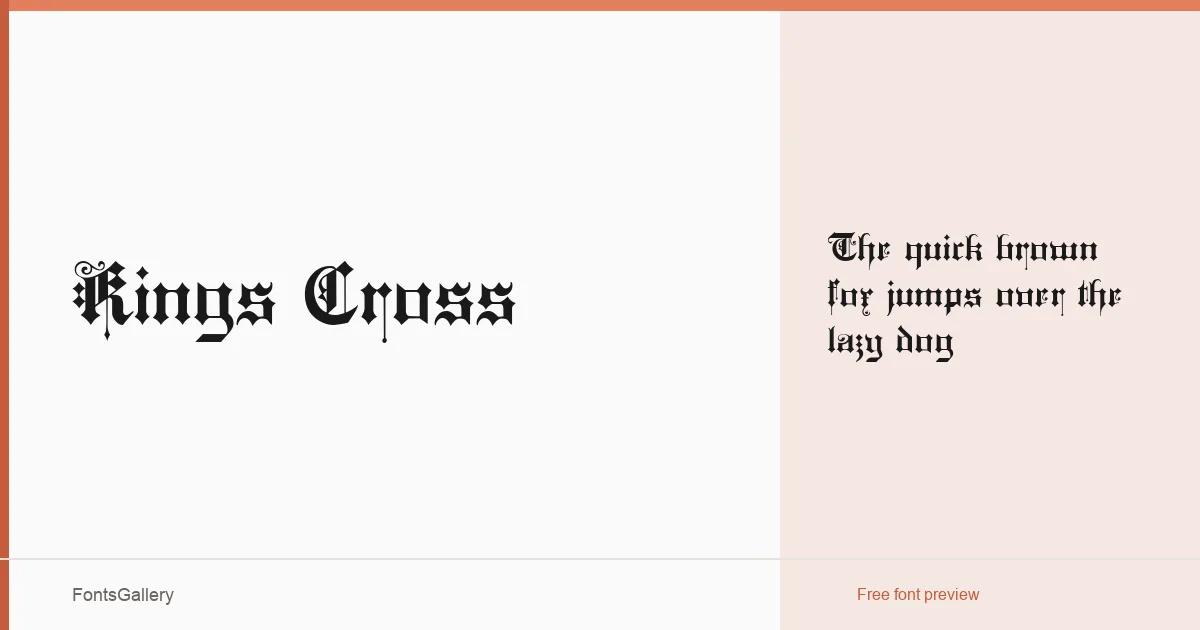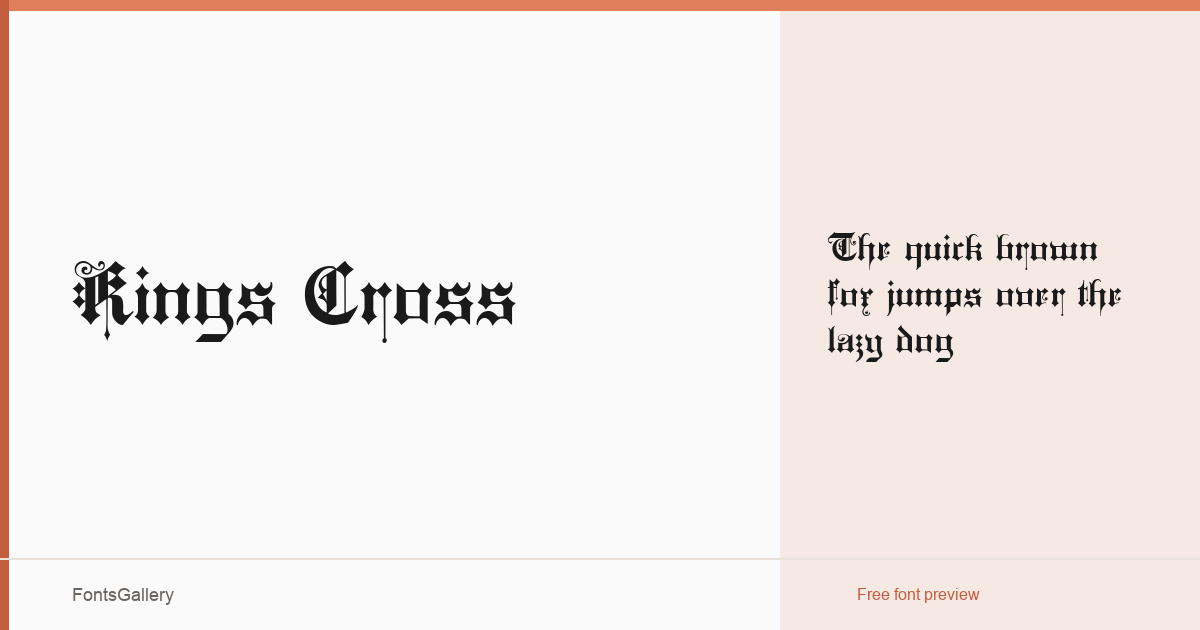
About Kings Cross Font
Kings Cross is a striking Blackletter typeface published by Typographer Mediengestaltung, crafted to deliver a powerful combination of vintage character and bold presence. Rooted in the rich tradition of classic Blackletter design, it carries an unmistakable sense of authority and timeless style. Its grunge-infused edge gives it a rugged, contemporary relevance that extends well beyond purely historical applications.
The letterforms draw on the dense, angular strokes and dramatic thick-to-thin contrasts that define classic Blackletter construction, enhanced by subtle grunge texturing that adds grit and depth. Each character exudes a bold, vintage confidence that feels both traditional and edgy, making it instantly commanding on the page. The overall aesthetic balances ornate historical detail with a raw, expressive energy perfectly suited to strong visual statements.
Kings Cross excels in high-impact applications such as logos, posters, branding identities, T-shirt designs, and certificates where bold typographic personality is essential. Its strong visual weight commands attention in large display settings, making it a natural choice for any project demanding vintage authority. Pair it with Helvetica for a clean, modern contrast that balances its ornamentation, or combine it with Aresink for a cohesive, expressive design with complementary character.